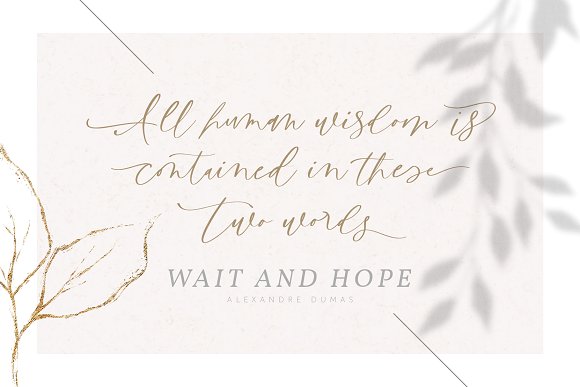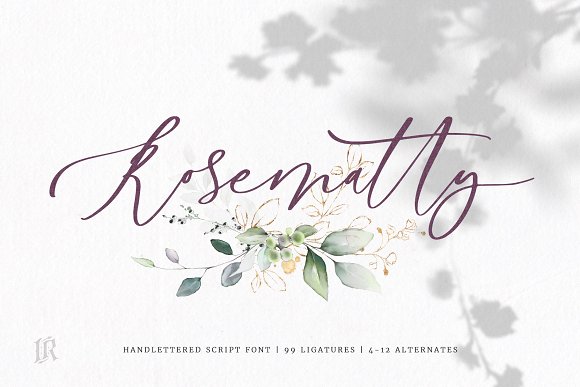
Rosematty Font
Rosematty Font is a modern calligraphy font with 99 ligatures. This font includes multilingual support for Western and Central Europe. Is ideal for blog website, instagram, branding, invitations, business cards, weddings and many more.
Rosematty Font also includes 4-11 alternate characters for both UPPERCASE AND LOWERCASE letters, beginning ending swashes for all lowercase letters and ligarures for different styles.